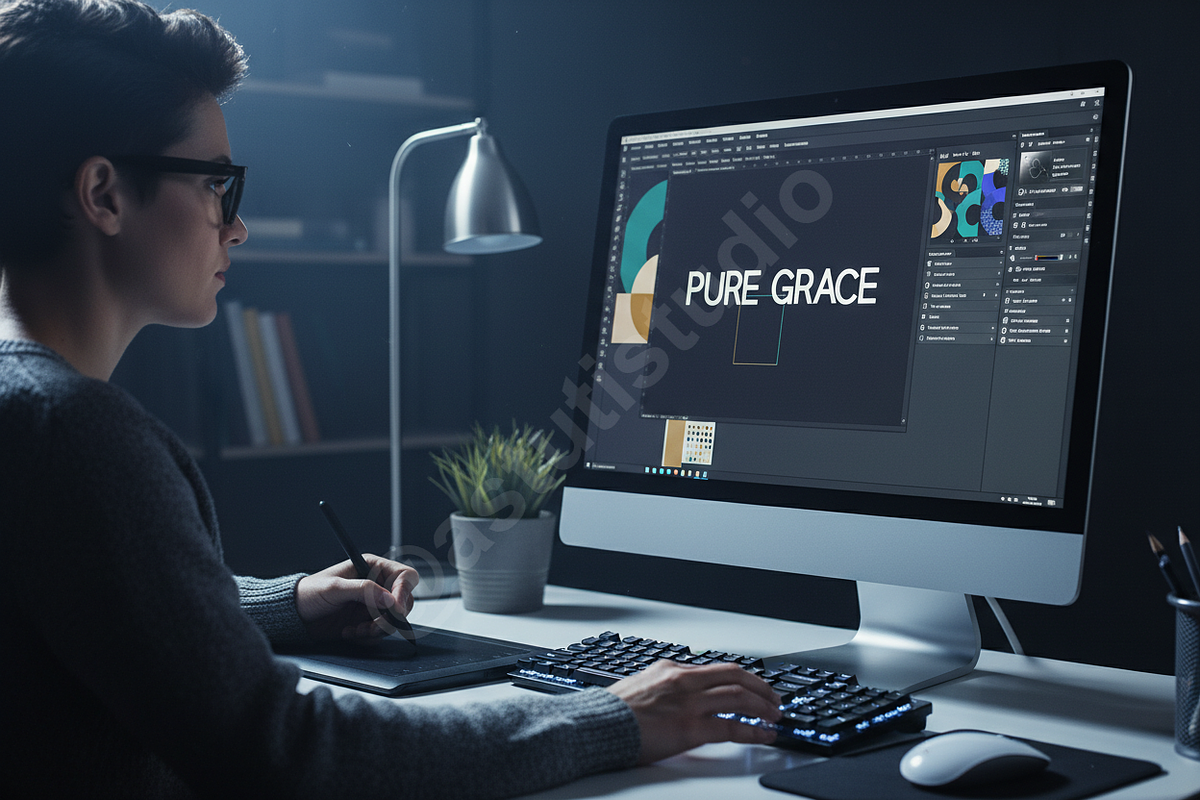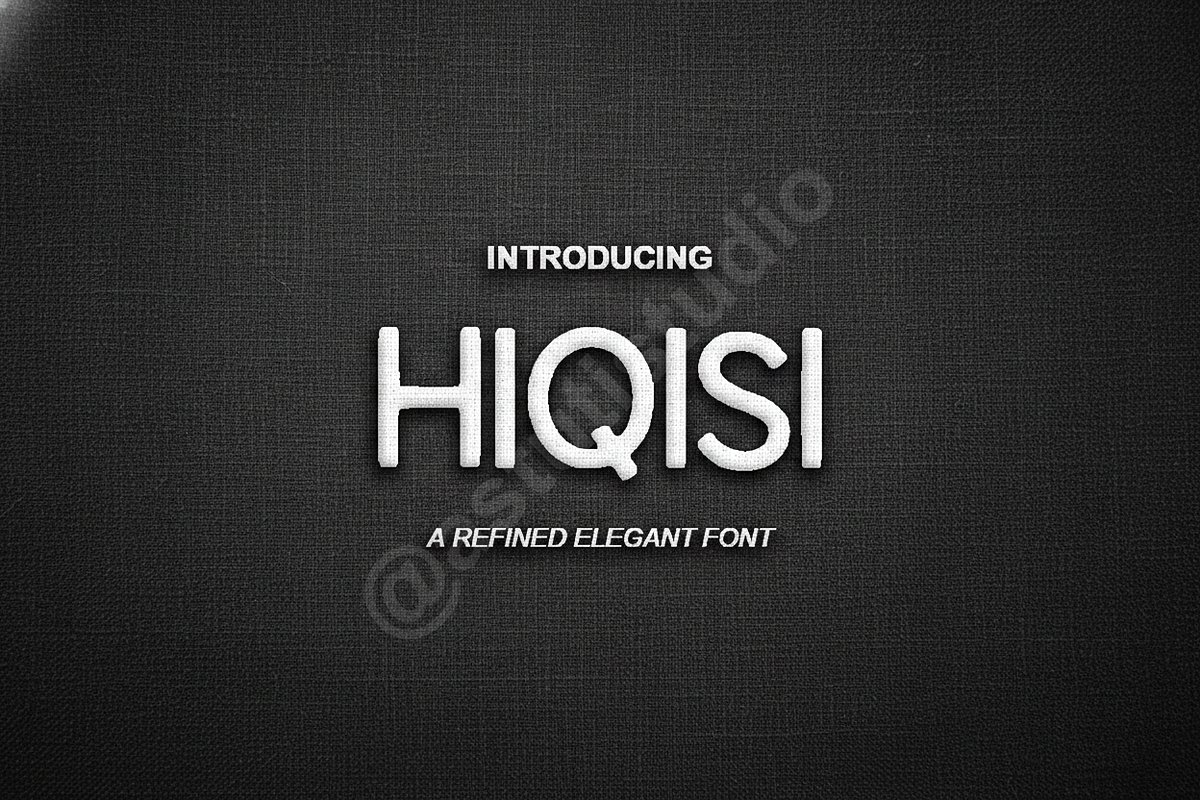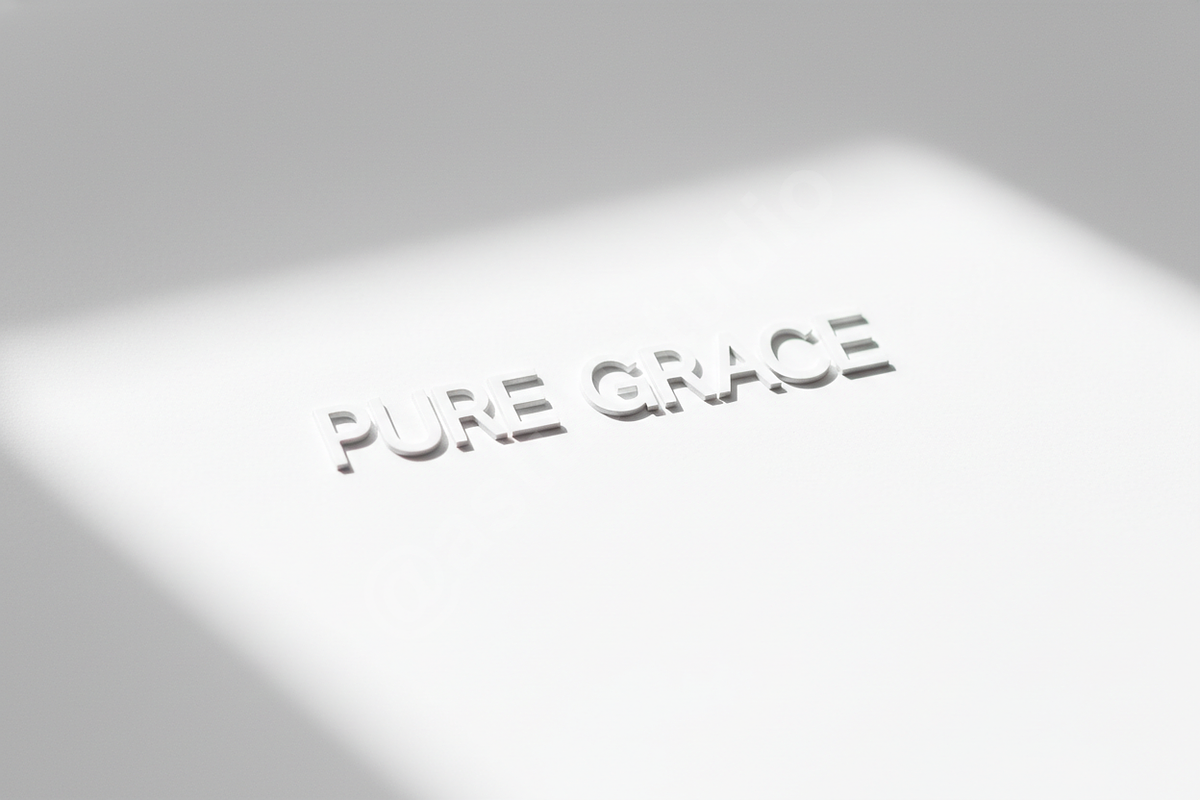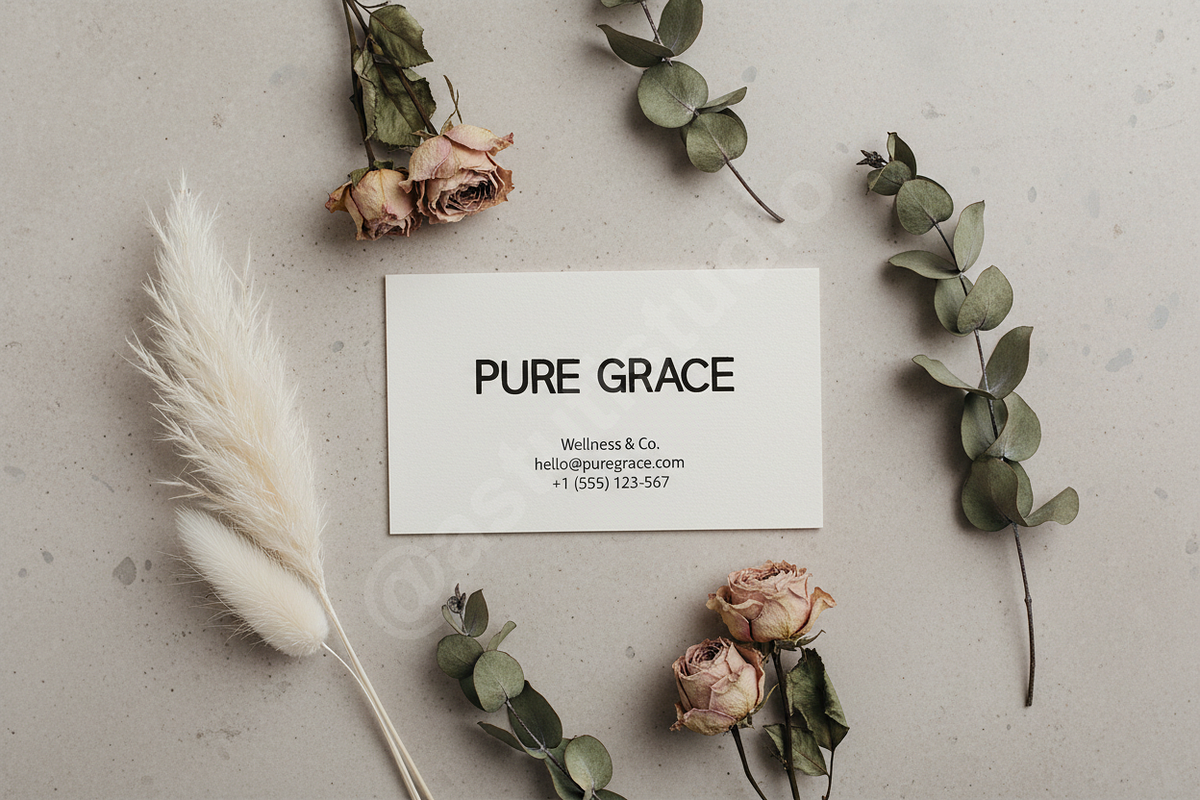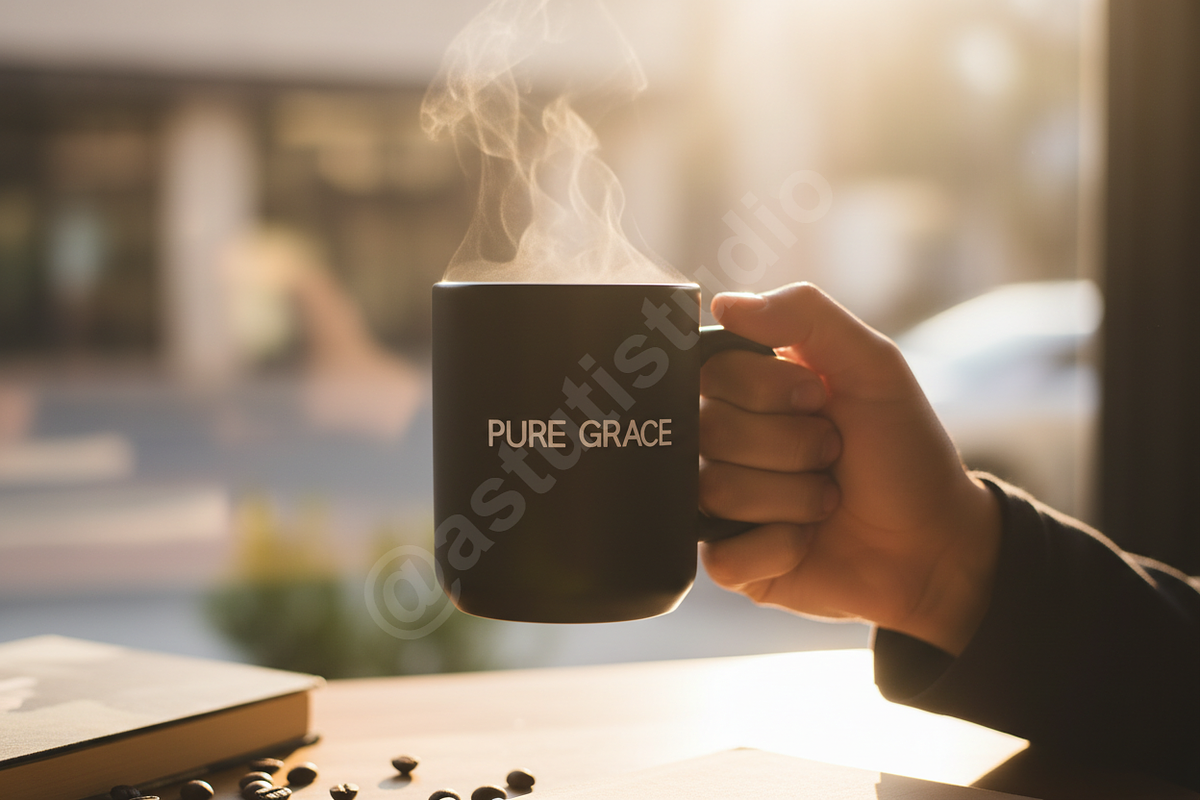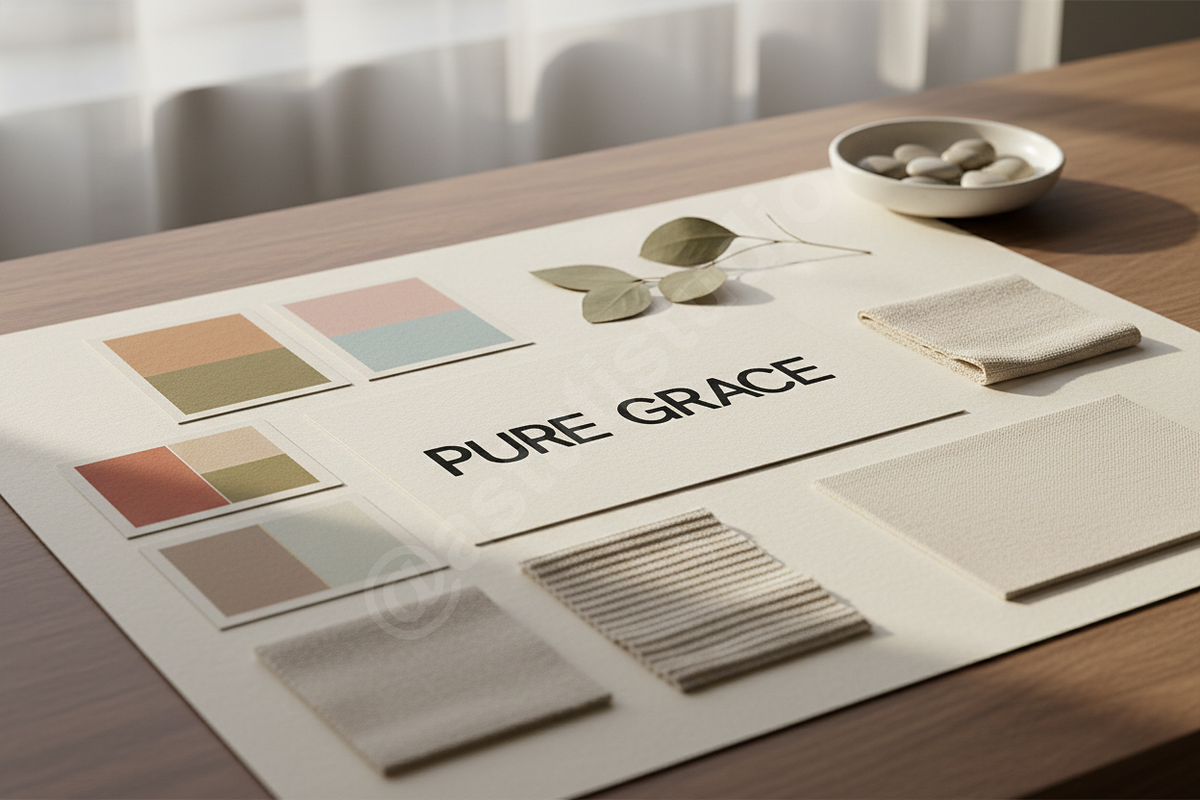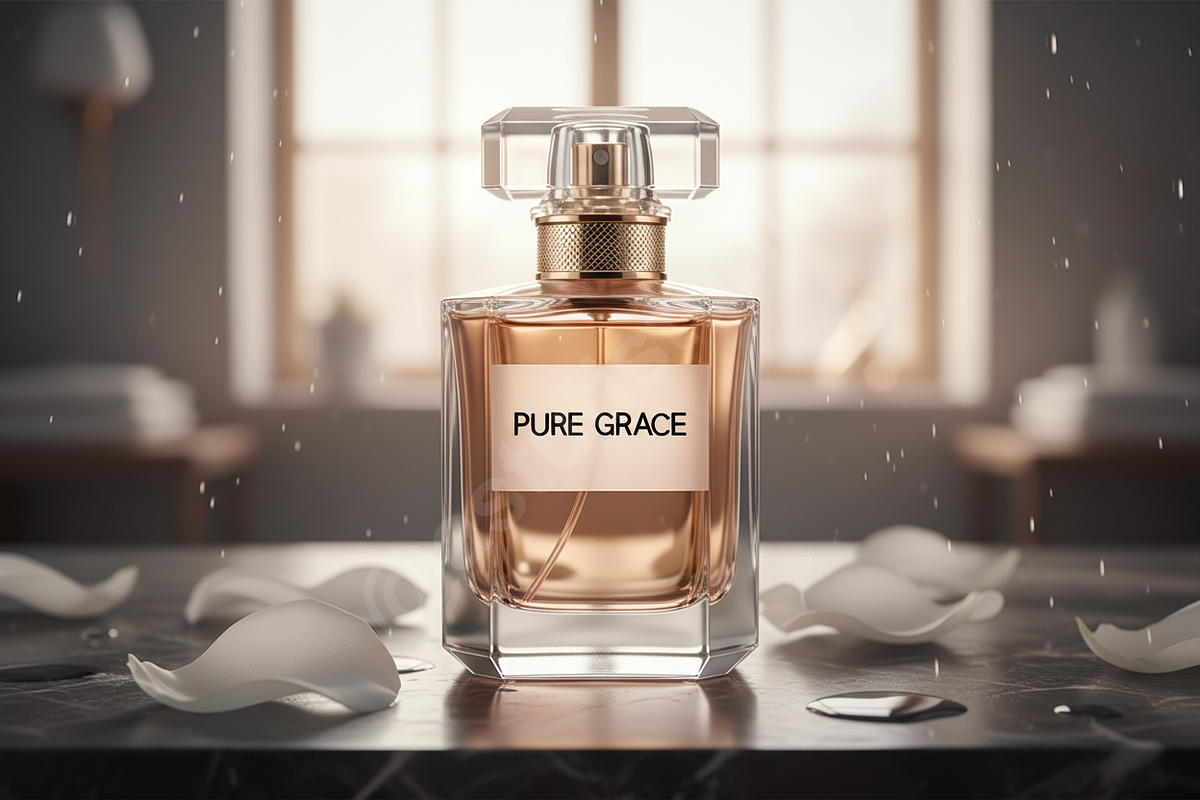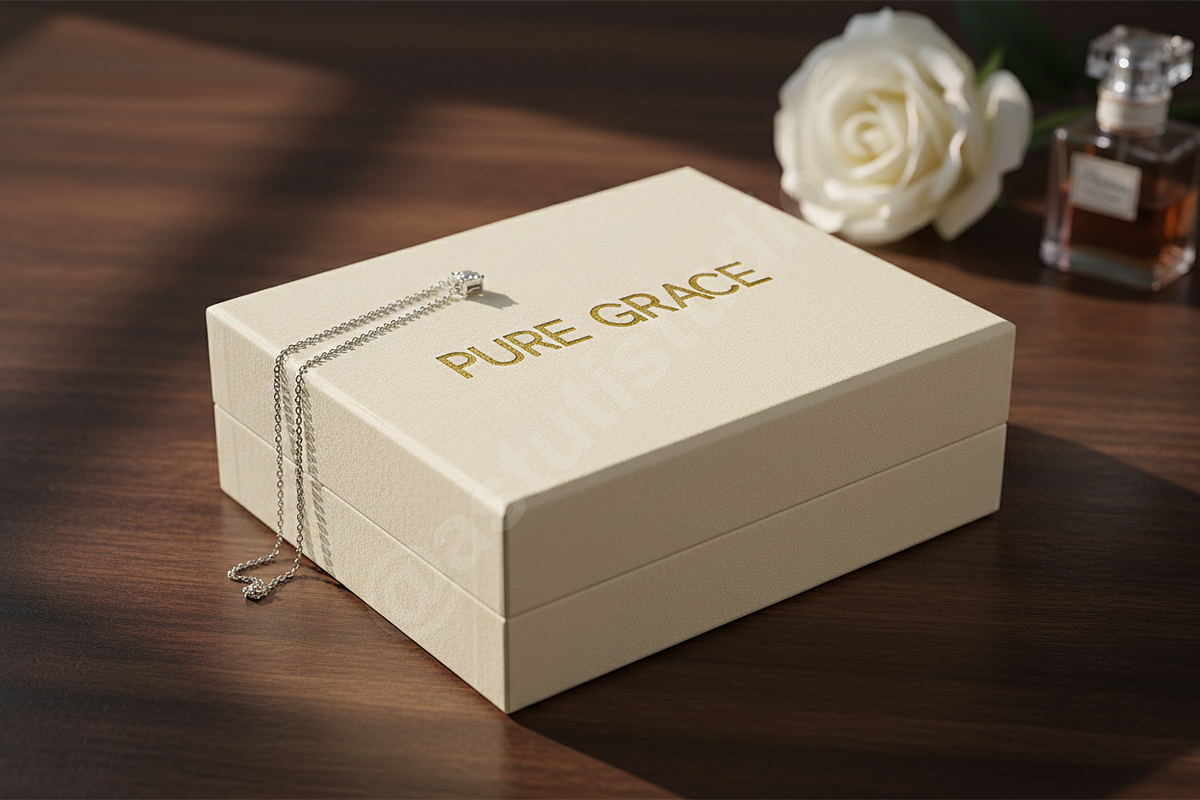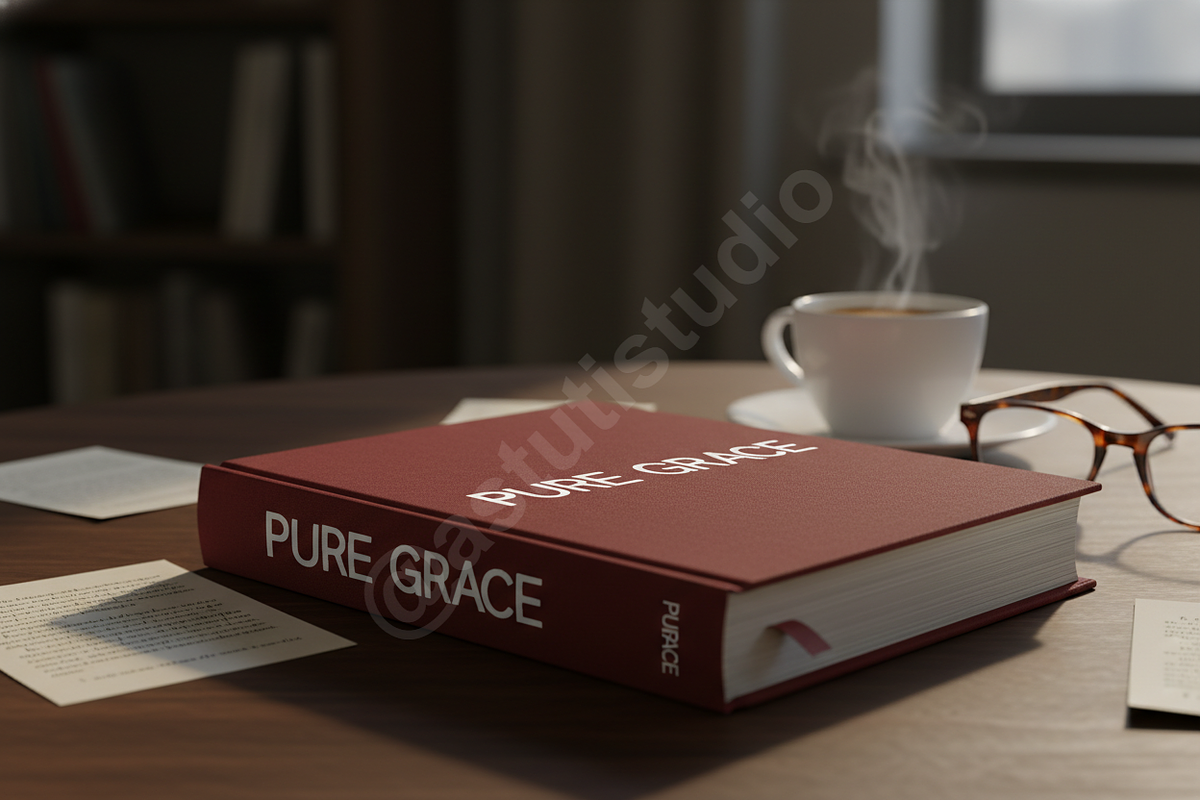
Hiqisi - Elegant Luxury Serif Typefa
INTRODUCTION Elevate your creative vision with Hiqisi, a high-contrast serif typeface designed for the sophisticated aesthetic. Drawing inspiration from high-fashion editorial layouts and timeless luxury branding, Hiqisi balances sharp terminals with graceful curves to create a look that is both commanding and delicate. It is the perfect choice for designers seeking to add a touch of prestige to their portfolios.
- High-contrast letterforms for a refined, upscale feel
- Unique discretionary ligatures for custom-look typography
- Full multilingual character support
- Precise kerning and balanced spacing
- Optimized for high-resolution print and digital displays
PERFECT FOR
- Luxury Branding & Identity
- Editorial Layouts & Magazine Headers
- High-End Social Media Content
- Wedding Invitations & Stationery
- Website Hero Images & Logo Design